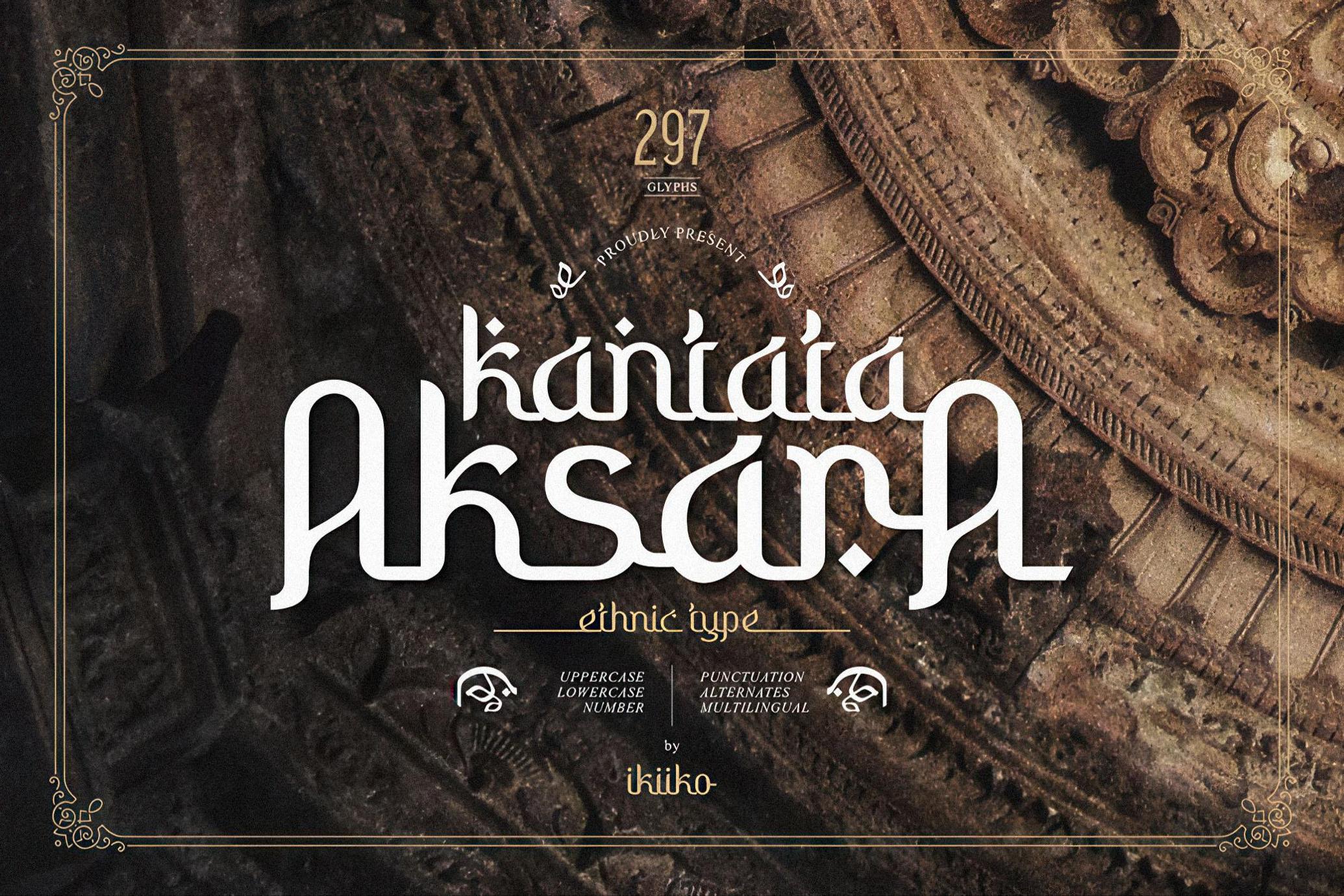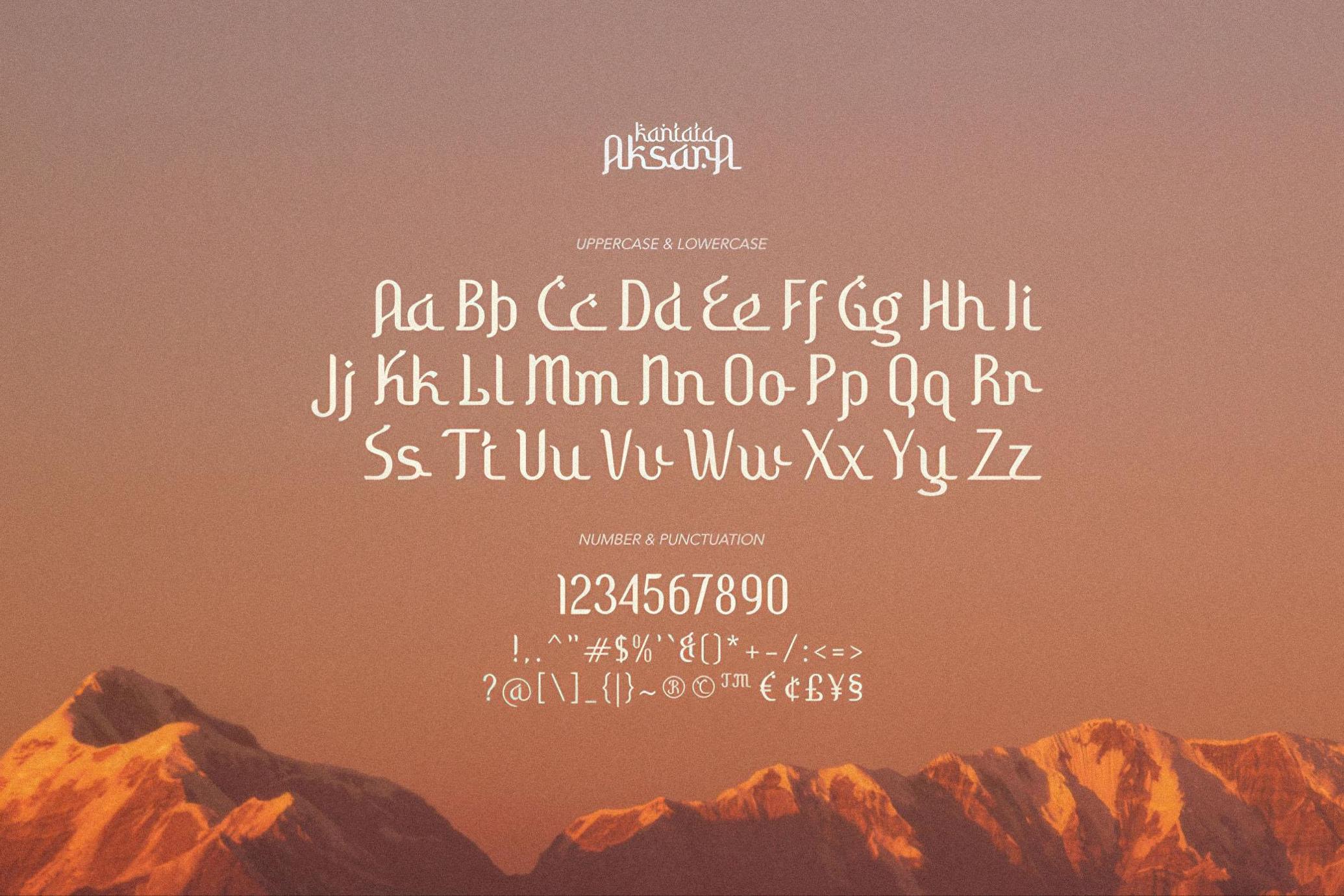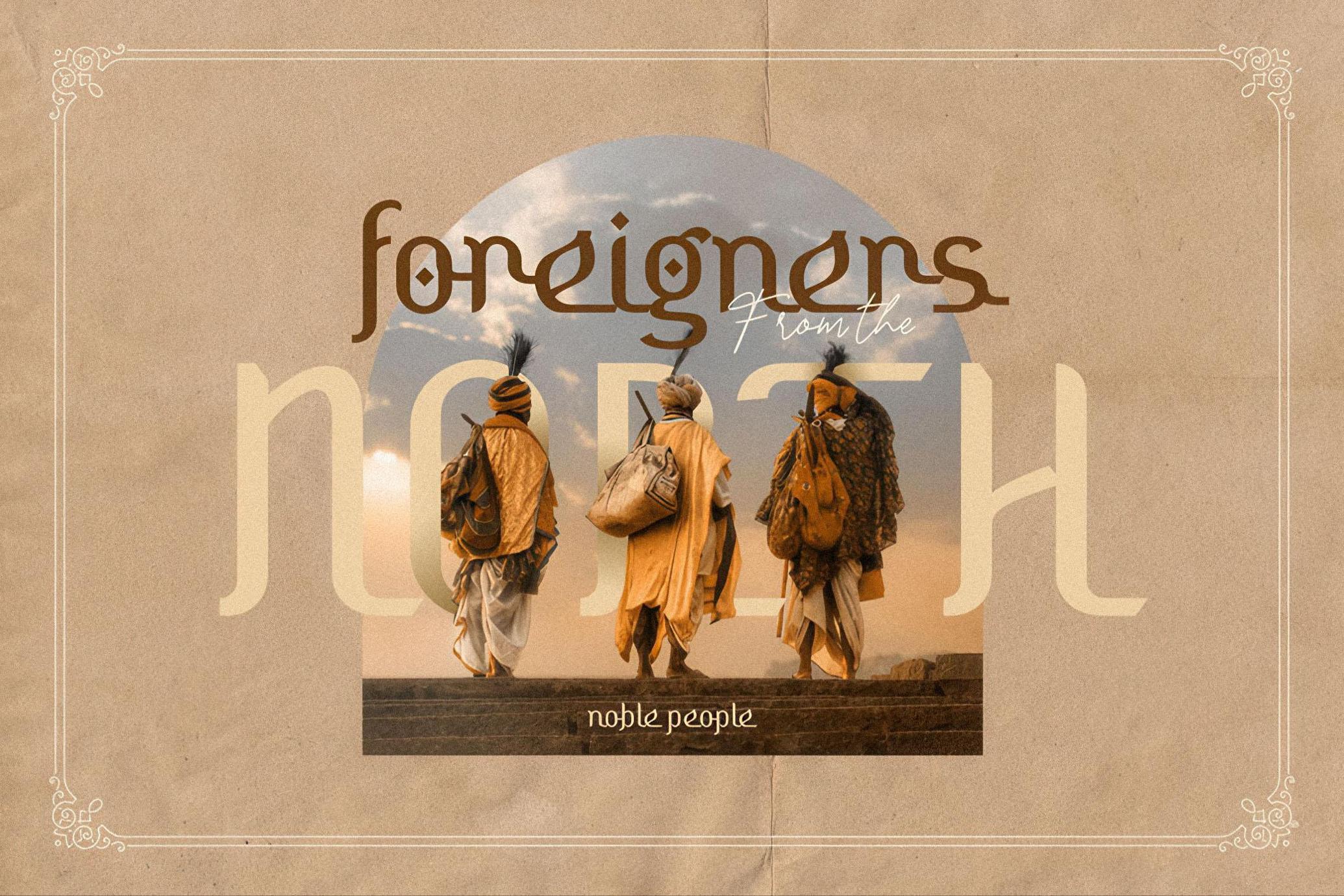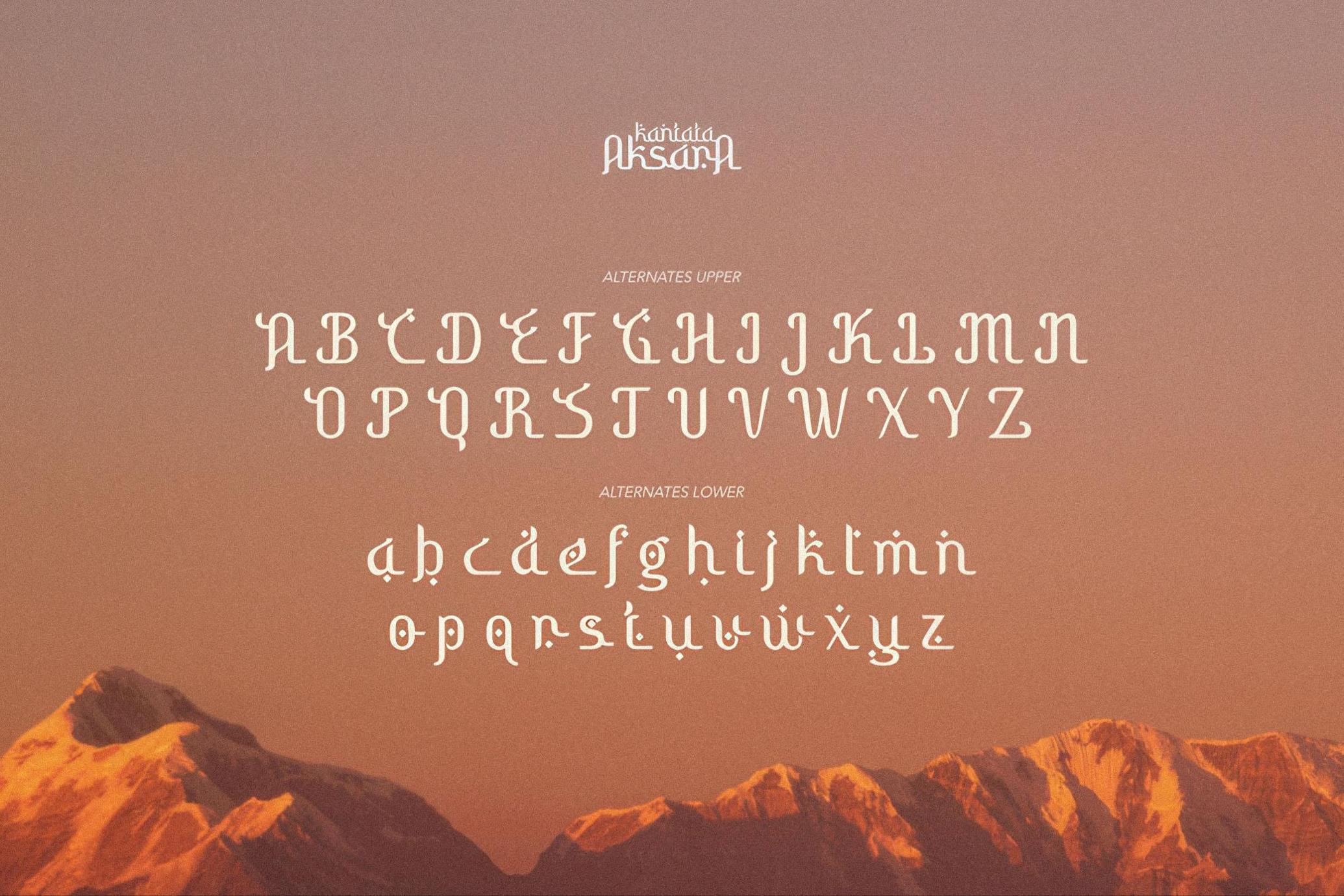
Kantata Aksara - Ethnic Font
Kantata Aksara inspired by indian culture has beautiful gestures, with a touch of tradition. Kantata Aksara is a display typeface with unique shape and stylistic. This typeface is perfect for an cultural logo, ethnic stuff, yoga & meditation stuff, beauty product, packaging product , magazine, quotes, or simply as a stylish text overlay to any background image.